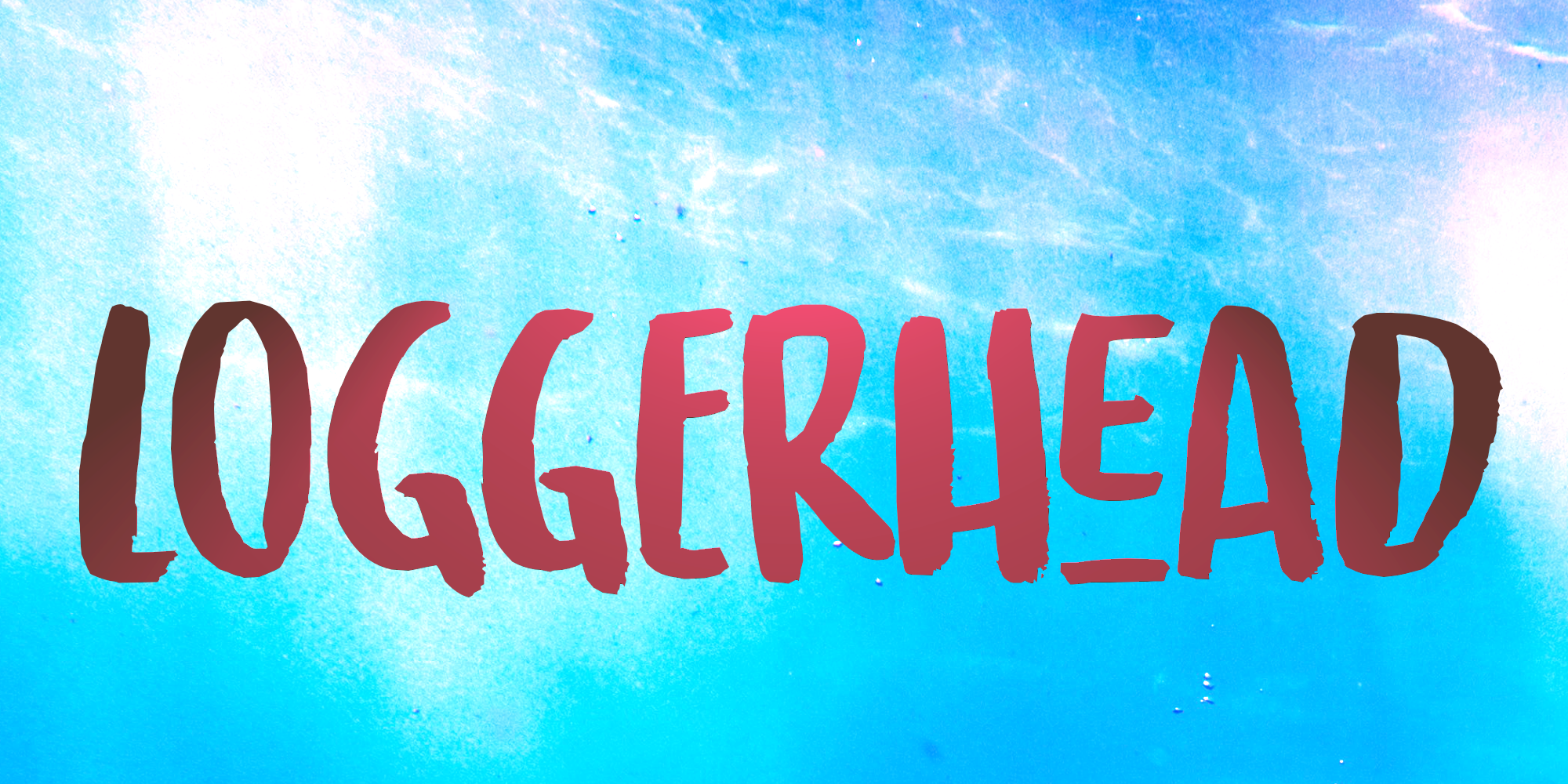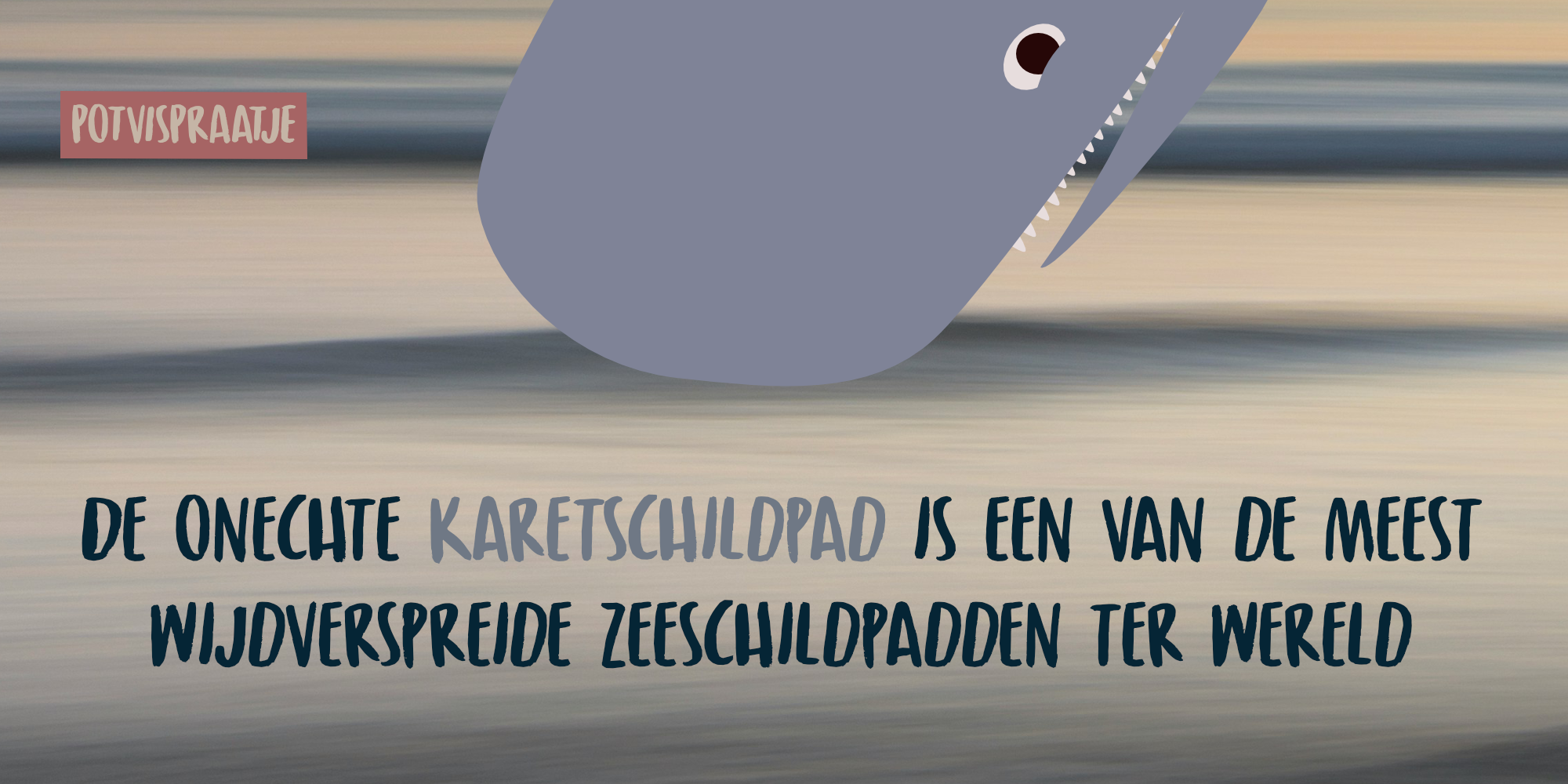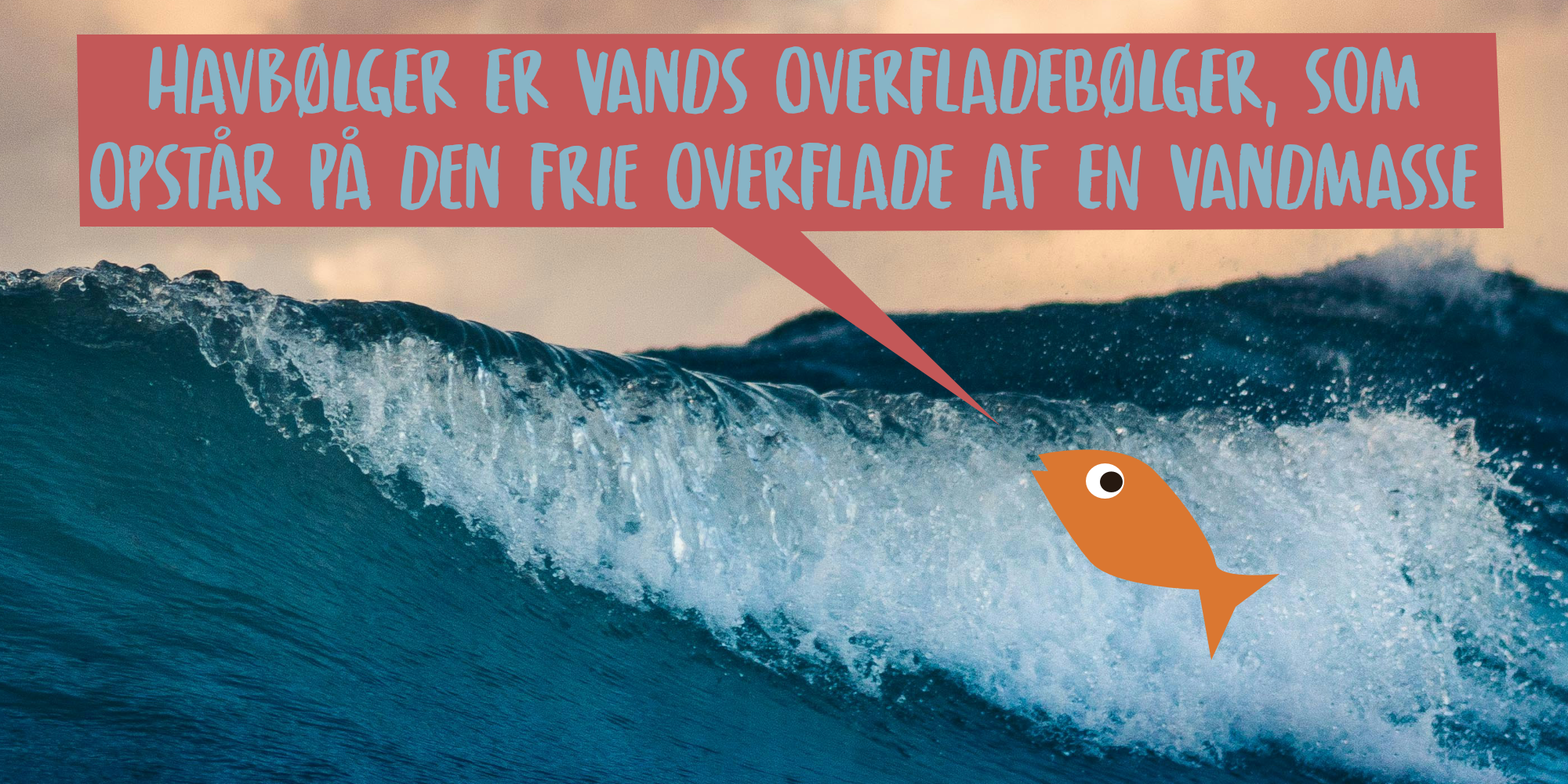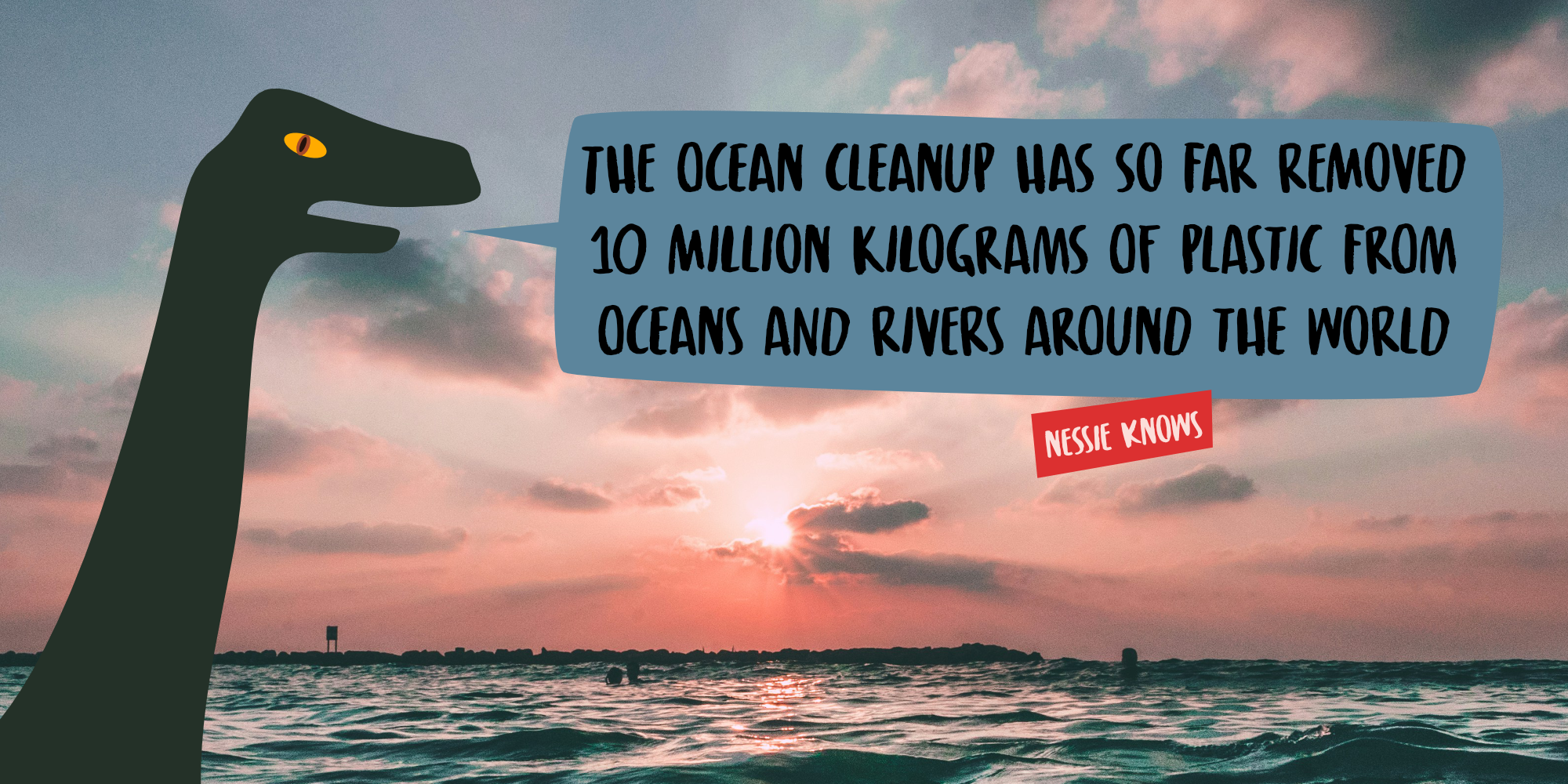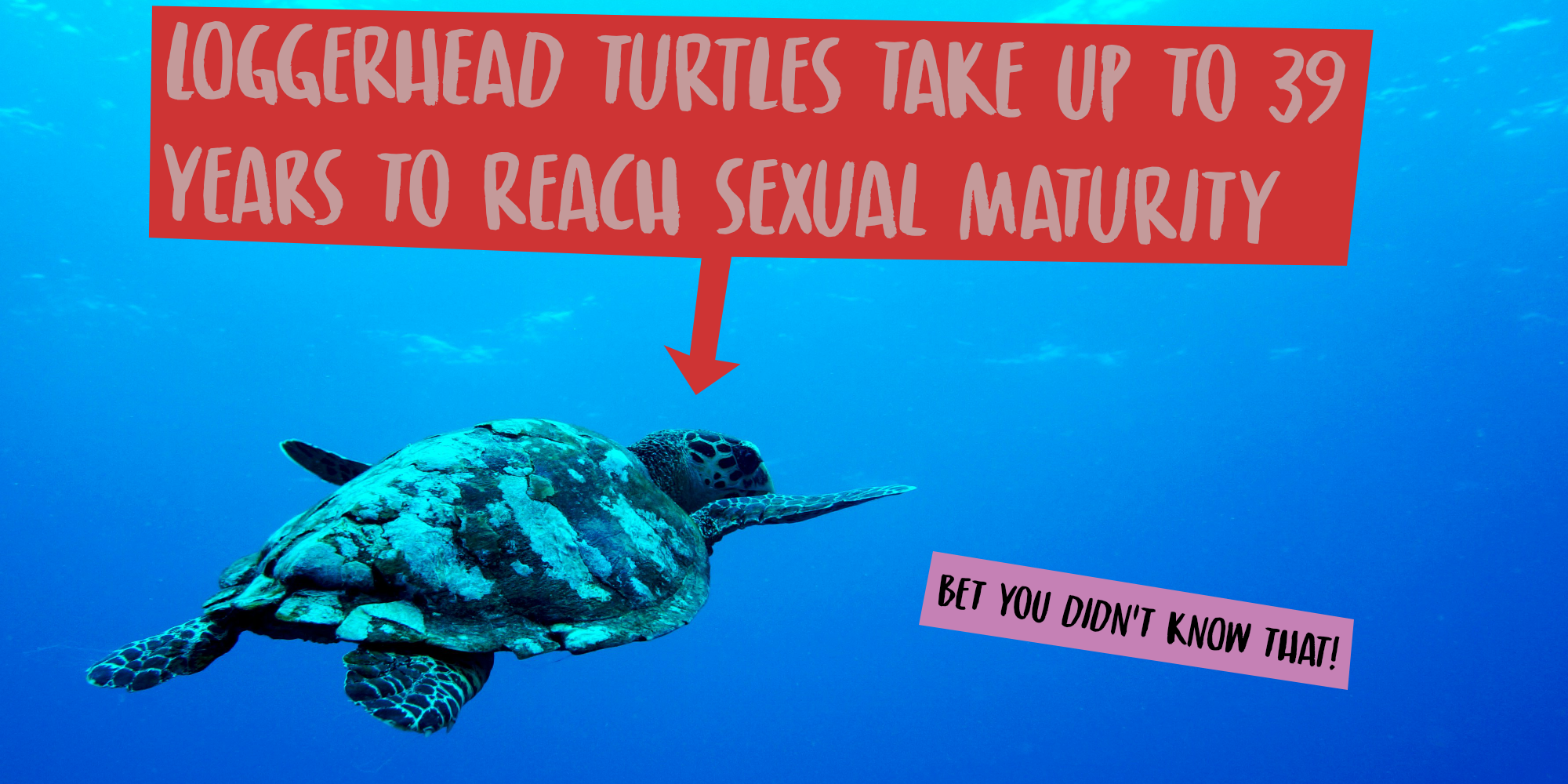
Loggerhead (2 fonts)
Loggerhead font is not stupid, thick headed nor made from wood. It is a really nice, inky kind of font. Use it for your packaging, your books, your posters - well, just anywhere you’d like to add some handmade charm. Comes with a set of alternates and some cool ligatures to boot!